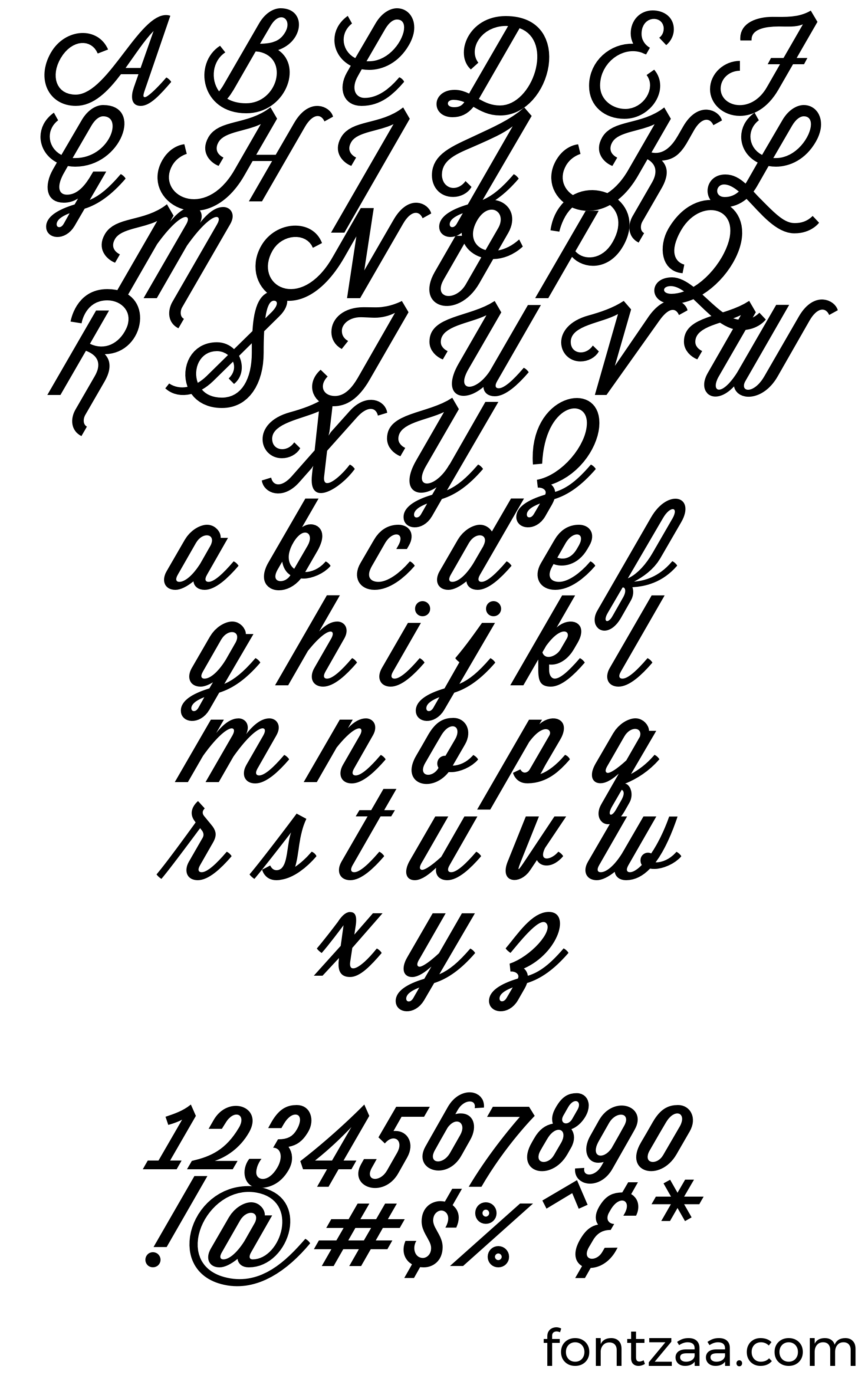
Wisdom Script Font
Discover the elegance and versatility of Wisdom Script Font, a font designed to increase the visual appeal of your projects. From branding campaigns and website typography to printed publications, Font Name combines modernity with classic elements and is, therefore, very appropriate for many purposes. It features clean lines and very well-balanced proportions to ensure readability at any size; therefore, it is one of the fonts any designer would use to make a powerful visual statement. Interact with the sophisticated charm of Wisdom Script Font, and let it take your design projects to new heights.
Wisdom Script Font Family